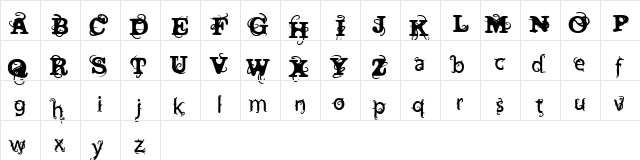
Vtks Wine Label Two Regular
| Foundry | douglas vitkauskas |
| Designer | douglas vitkauskas |
Design Context for Vtks Wine Label Two Typeface
Vtks Wine Label Two is a composed and adaptable typeface that performs quietly and consistently across a wide range of design contexts.